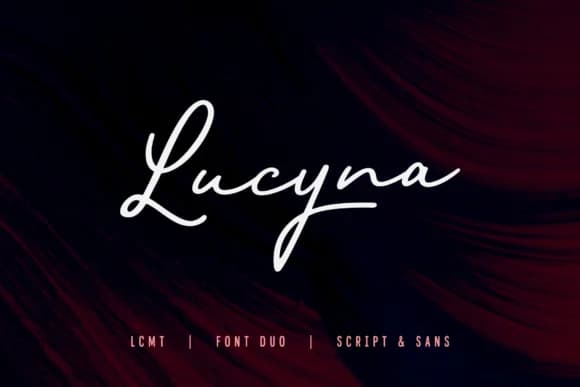
Lucyna Font by locomotype combines a handwritten script with a complementary sans serif, creating a versatile duo for designs that blend warmth with clarity. The pair features rounded, generous letterforms that convey friendliness without sacrificing elegance, making it suitable for projects requiring both personality and refinement.
This font pairing works exceptionally well for wedding invitation stationery sets, where the script handles prominent text while the sans serif ensures readability in supporting details. It's equally at home creating handmade greeting card designs that feel authentic and inviting. The interplay between the expressive script and structured sans serif opens possibilities for boutique branding and product packaging, particularly for artisanal goods seeking a handcrafted aesthetic. Use Lucyna for DIY gift tag and label projects, Instagram graphics, or artistic blog headers where visual personality matters as much as clarity.
- Elegant, Flowing, Lucyna Script
Lucyna Font is a script font that shines as a display or heading face. Pair it with a clean sans-serif or serif font for body text β the contrast creates a clear hierarchy while the two styles stay balanced and easy to read.
Lucyna Font